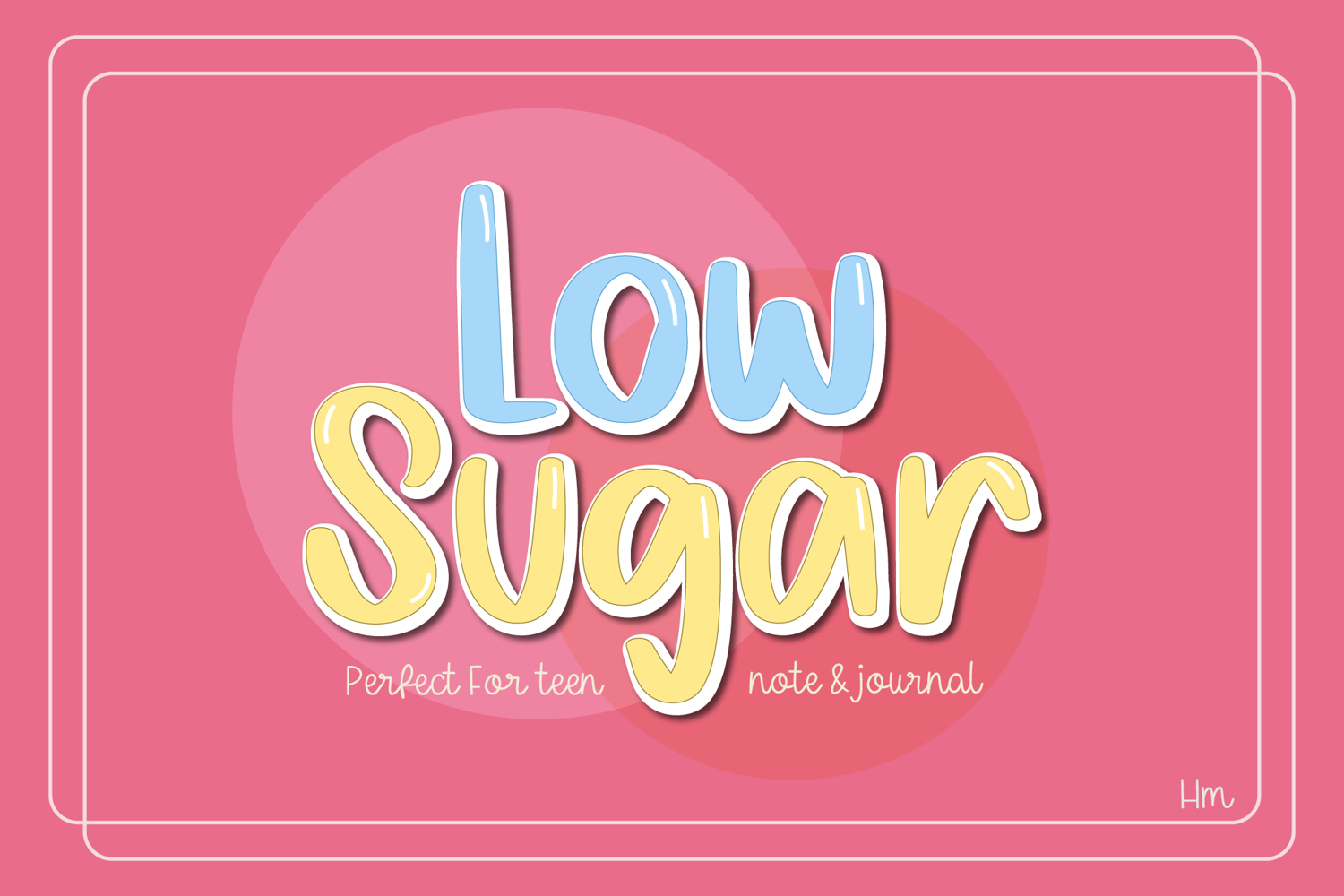
A cute handwritten font with rounded letters and a soft playful style.
Perfect for worksheets, journals, planners, classroom resources, and kids designs.
LowSugar